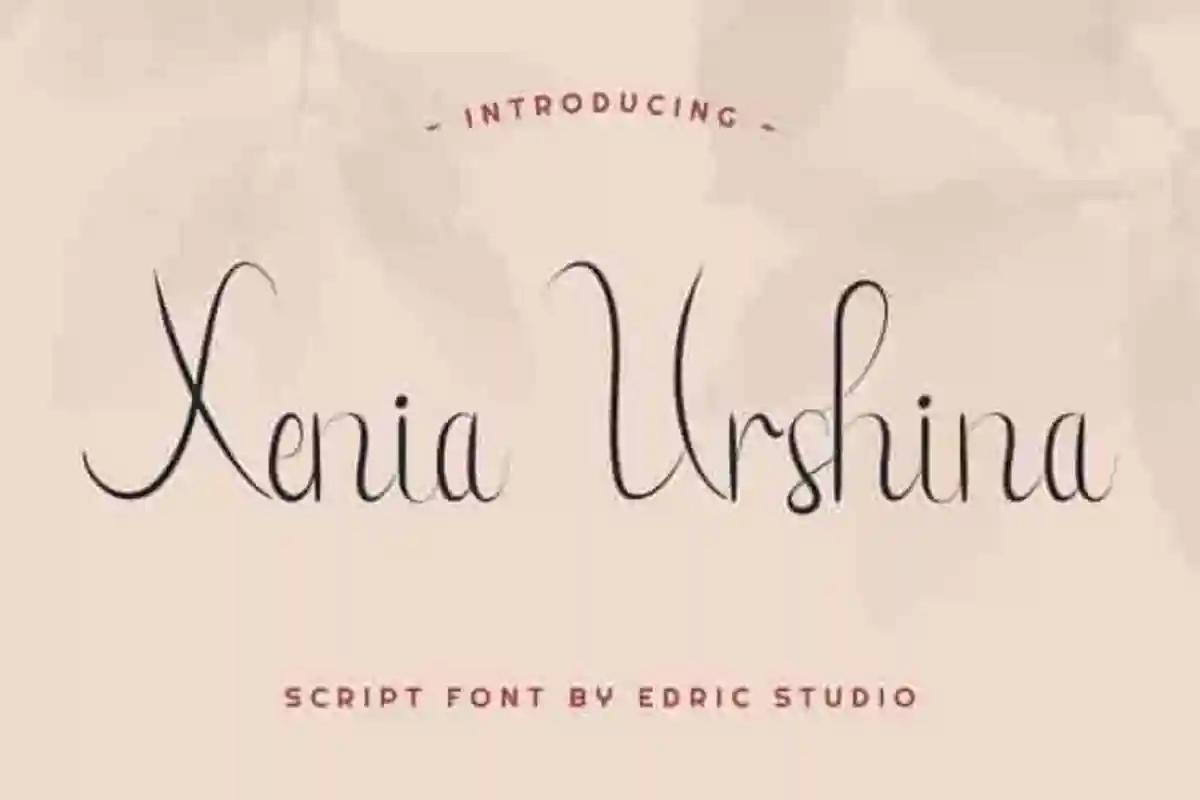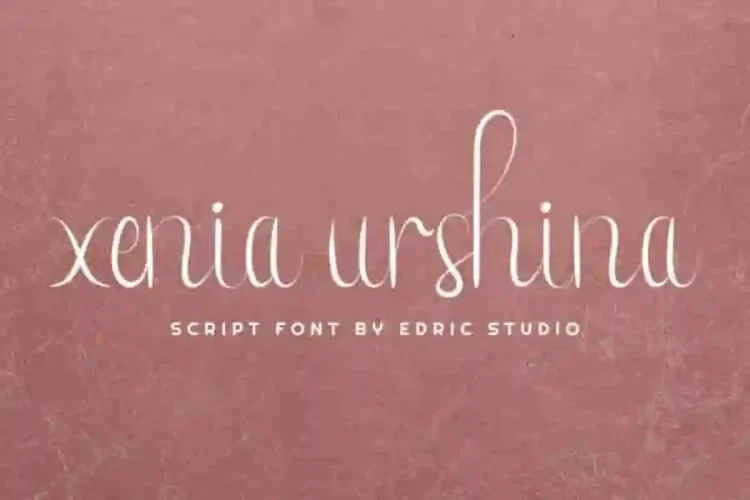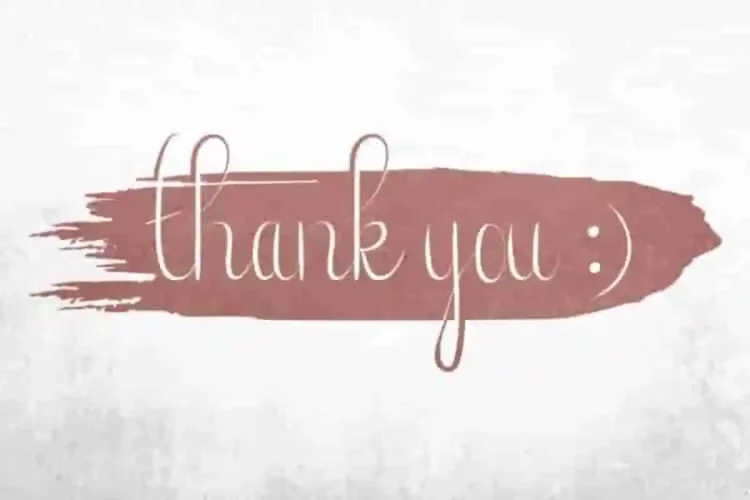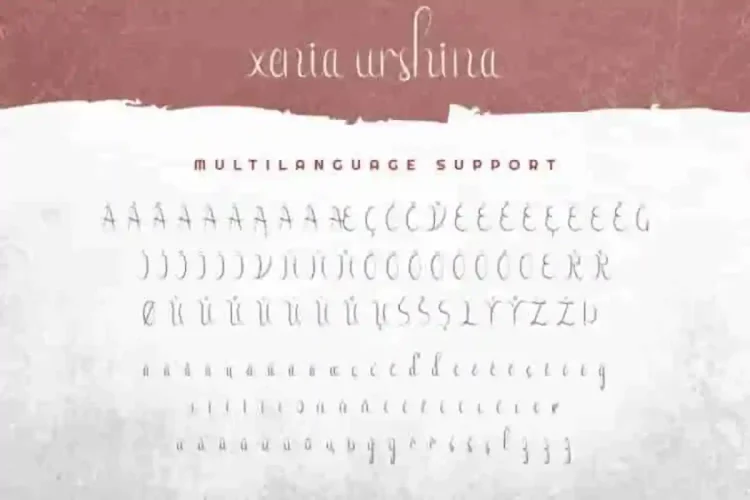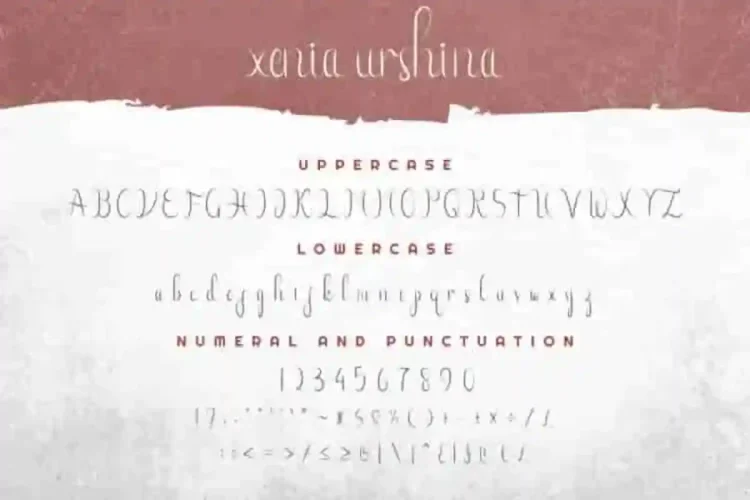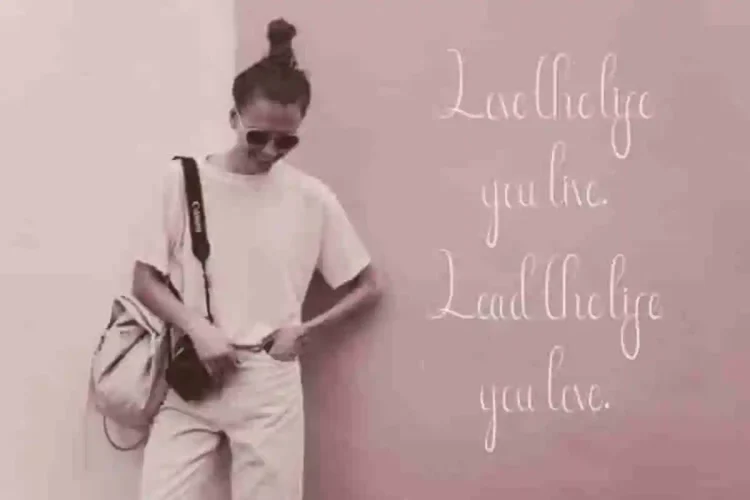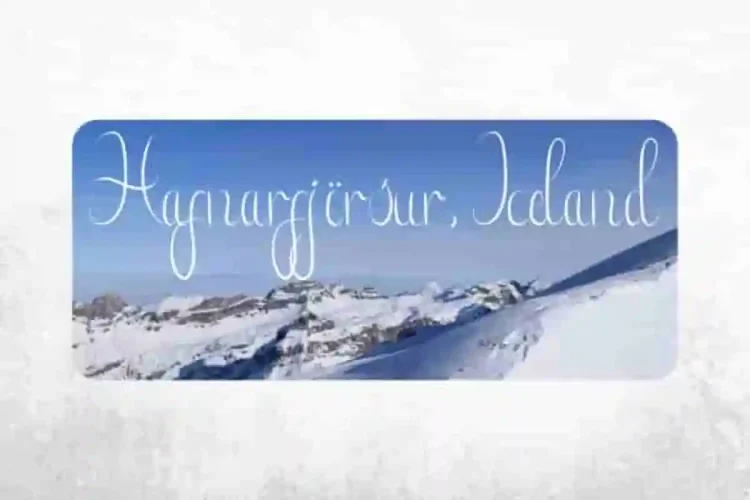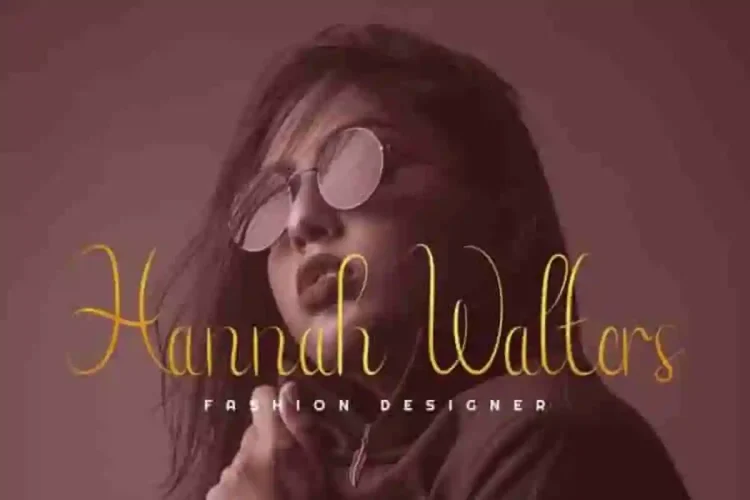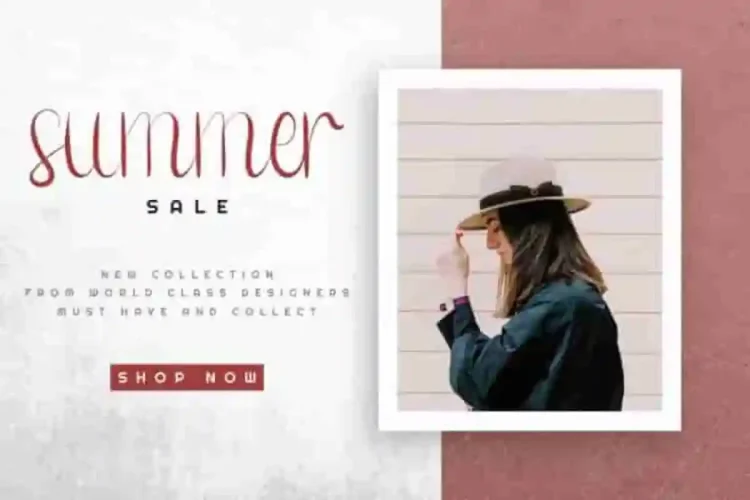
Xenia Urshina Calligraphy Font
The newest font from our lovely artist : Xenia Urshina Calligraphy Font
This is a Calligraphy script font, handcrafted from our Studio here in, Indonesia. The artists/designers of this beautiful tyeface is Widi and Suci.
Xenia Urshina Calligraphy Font is an exclusive calligraphy script typeface with beautiful style. This font has an awesome characters set, perfectly managed with well spaced and kerning. The theme style of this font is stylish, elegant, feminine, chic, glamour and sophisticated
Xenia Urshina Calligraphy Font will be wonderful for all projects with extended licenses including : branding, logo, stationery, business card, signage, flyer, brochure etc. Almost all industries will be match for this typeface: wedding, events, makeup artist, florist, photographer, architect, interior, real estate, designer etc